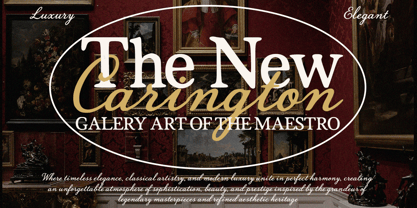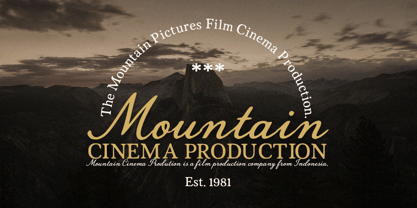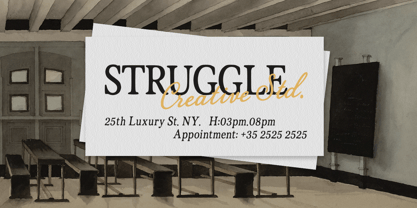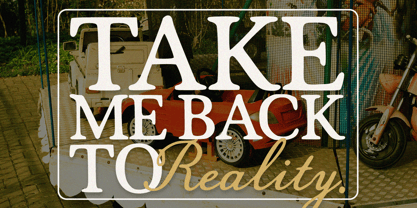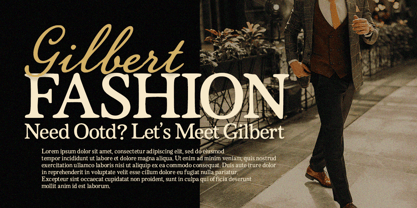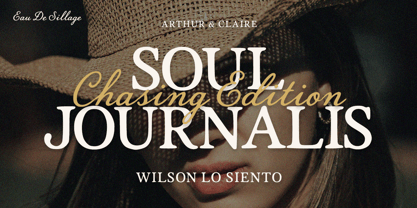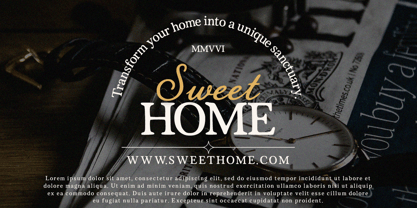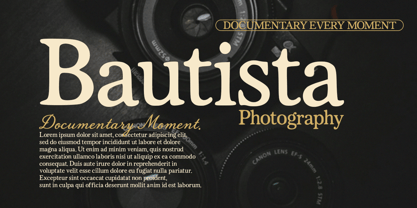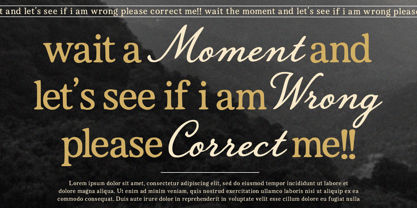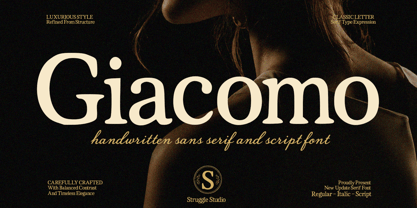
Giacomo
Die Schriftfamilie Giacomo wurde von Andri Kurniawan entworfen und von Struggle Studio veröffentlicht. Giacomo enthält 3 Stile und Familienpaketoptionen. Mehr über diese Familie
Giacomo – Timeless Elegance & Contemporary Sophistication
Introducing Giacomo, a premium font collection meticulously crafted by Strap Studio to bring an aura of luxury and high-end style to your design projects. Perfectly balancing classic structure with modern refinement, Giacomo is designed for creators who refuse to compromise on sophistication.
The Collection Breakdown
Giacomo is not just a single font—it is a versatile typographic system that includes:
• Regular: A stunning display serif featuring balanced contrast, bold presence, and timeless elegance.
• Italic: A graceful, slanted variation that adds a dynamic yet high-class rhythm to your text.
• Script: A beautifully fluid, handwritten companion that provides an authentic, organic touch to editorial layouts.
Key Features
• High-Contrast Serif Expression: Offers a powerful visual impact for headings and titles while maintaining flawless readability.
• Luxurious Versatility: The seamless interplay between the bold serif and the organic script font gives you endless creative freedom.
• Carefully Crafted Details: Every curve, terminal, and ligature has been structurally refined to evoke a classic, editorial aesthetic.
Perfect For:
Whether you are designing for the fashion, beauty, hospitality, or corporate sectors, Giacomo elevates any canvas. It is the ultimate choice for:
• Luxury branding, logos, and monograms
• High-end editorial layouts and magazine covers
• Elegant wedding invitations and stationery
• Sophisticated product packaging and cosmetic labels
• Social media graphics with a refined, moody aesthetic